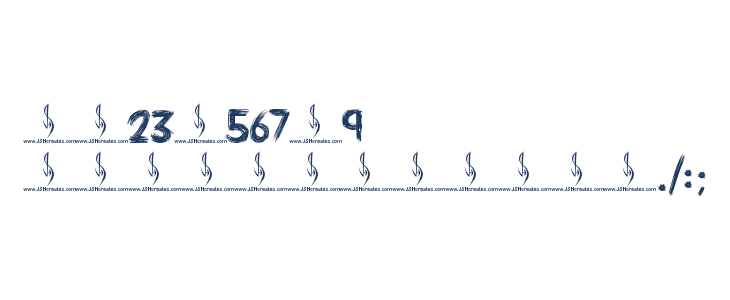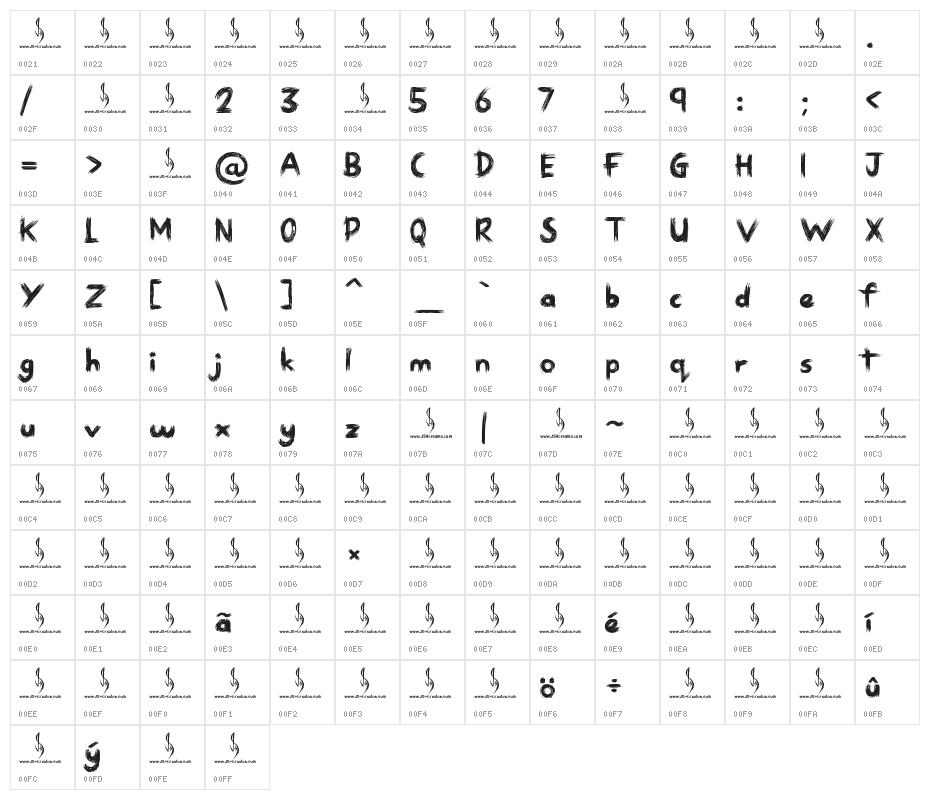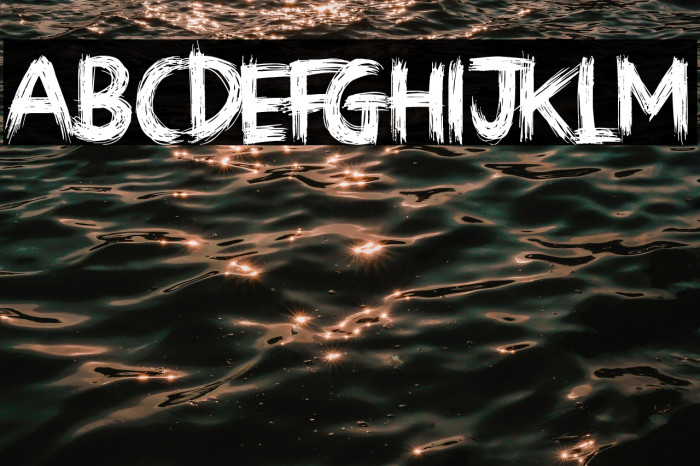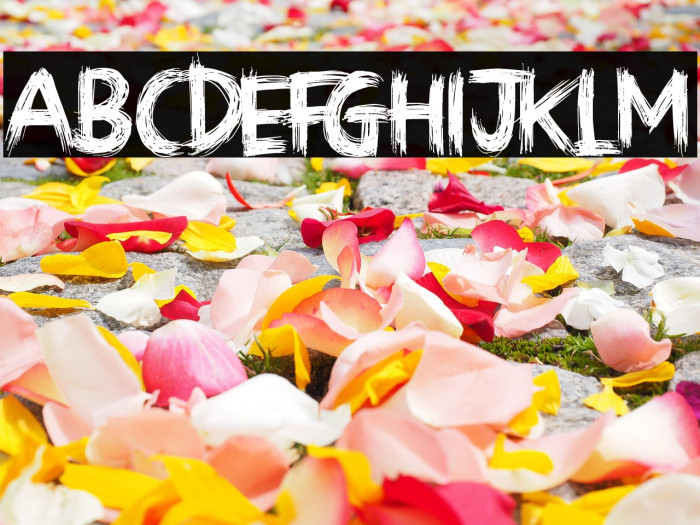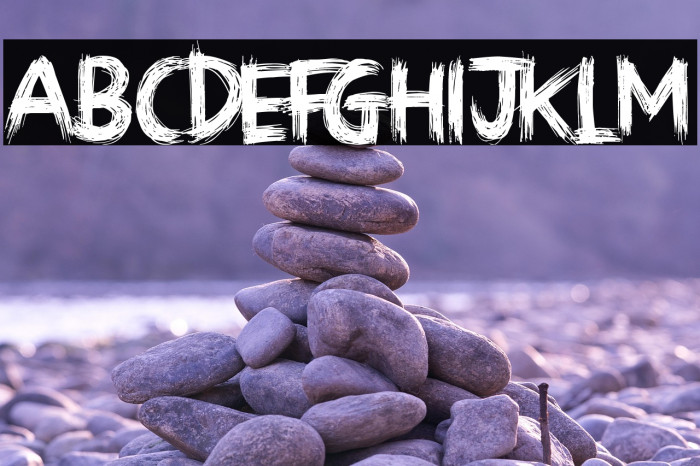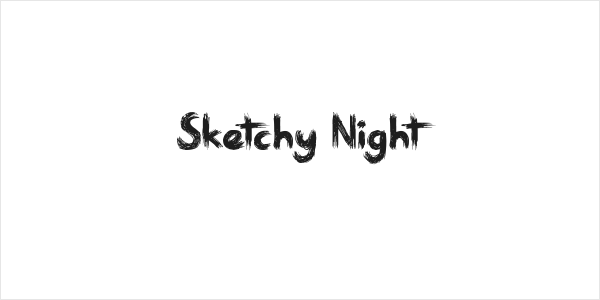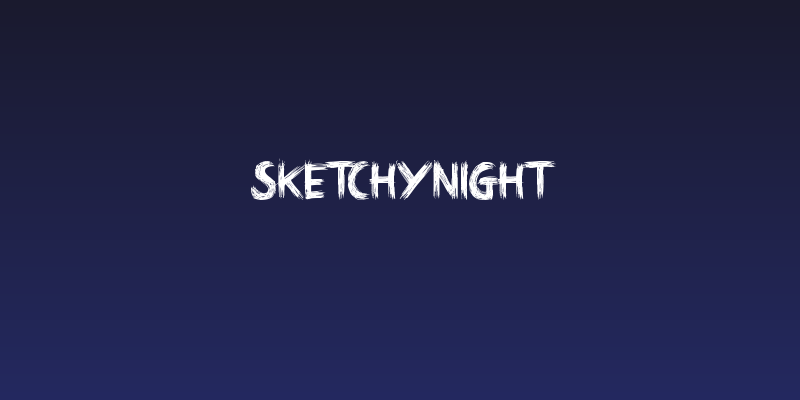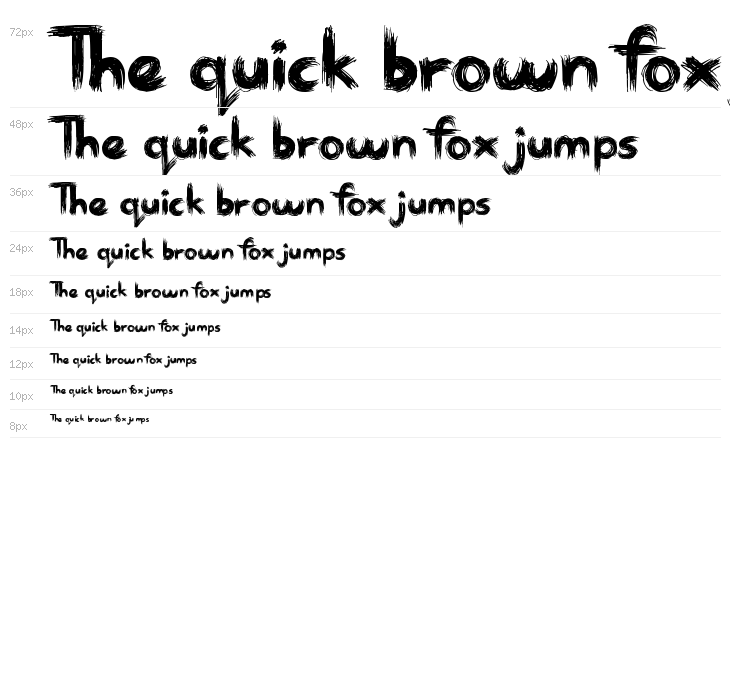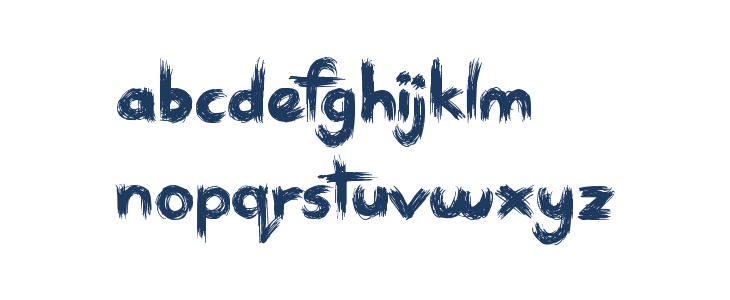
Sketchy Night Font
Sketchy Night Description
This font features a bold, sketch-like appearance with rough, hand-drawn strokes that give it a dynamic and edgy feel. The characters are irregular and textured, resembling brush strokes or scribbles, which adds a sense of movement and energy. The uppercase and lowercase letters maintain a consistent style, with varying thickness and a slightly chaotic arrangement that enhances its artistic flair. Numbers and special characters follow the same sketchy design, making the font cohesive and visually striking. This font is ideal for projects that require a bold statement or an artistic touch.